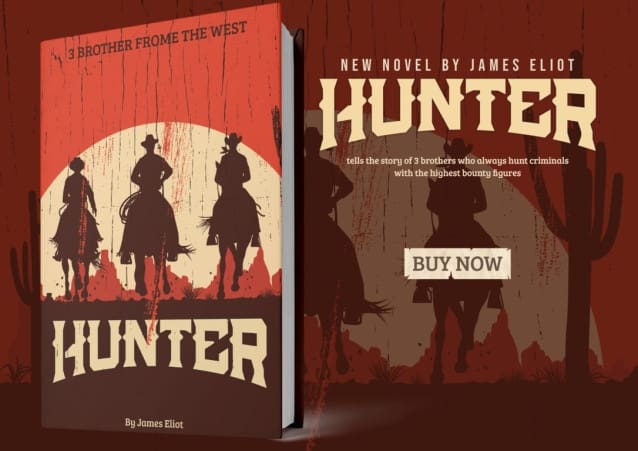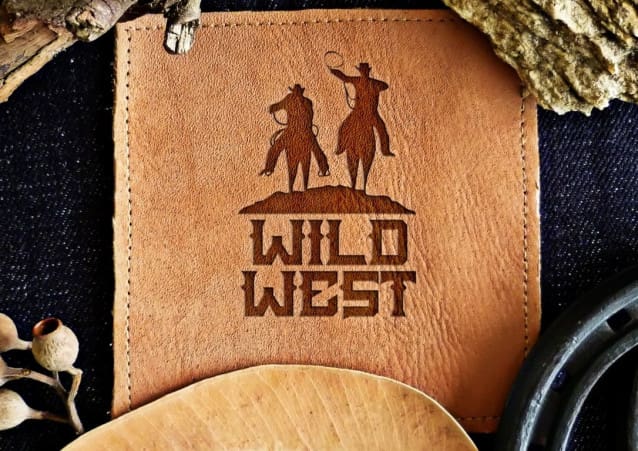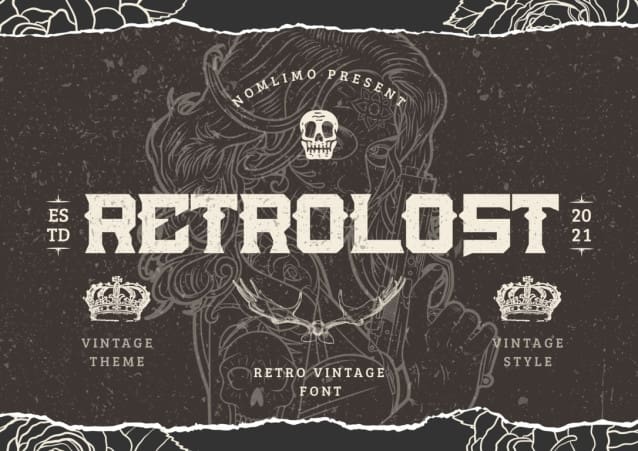
Retrolost Vintage Font
Retrolost Vintage Font, a font inspired by the nostalgic lettering of the past, while maintaining a strong modern appeal. Each combination has been meticulously crafted to enhance the look of your designs. Let Retrolost transport you back in time while adding a contemporary touch to your creative projects.